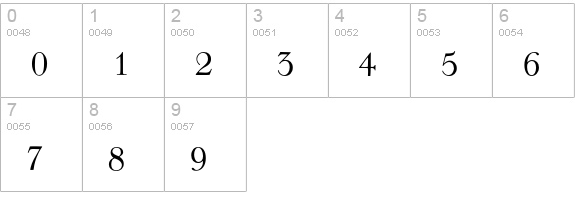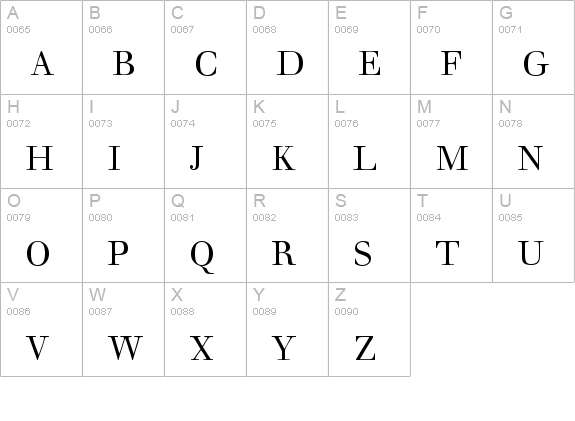
Walbaum font is a timeless and elegant typeface that exudes sophistication and style. With its classic serif design and graceful letterforms, Walbaum is perfect for conveying a sense of refinement and class in any project. This font is a versatile choice for a wide range of design applications, from print materials to digital media. What sets Walbaum font apart is its excellent legibility and readability, making it a popular choice for body text as well as headlines and titles. Its balanced proportions and delicate serifs add a touch of sophistication to any design, making it a favorite among designers and typographers alike. The best part? Walbaum font is available for free download at FontsMarket.com, allowing you to add this elegant typeface to your collection without breaking the bank. Whether you're working on a branding project, editorial design, or any other creative endeavor, Walbaum font is sure to elevate your work with its timeless charm and versatility. Download it today and bring a touch of classic elegance to your designs.